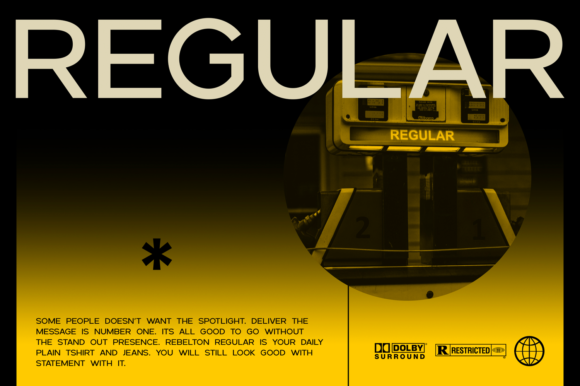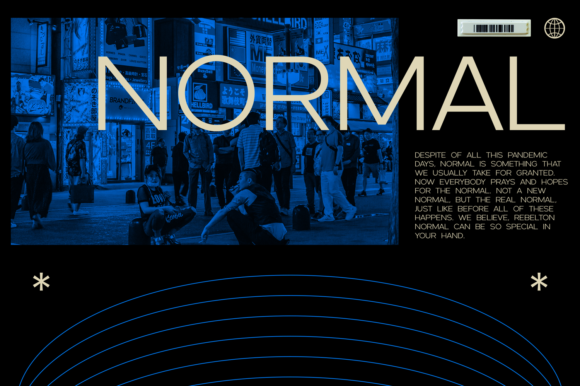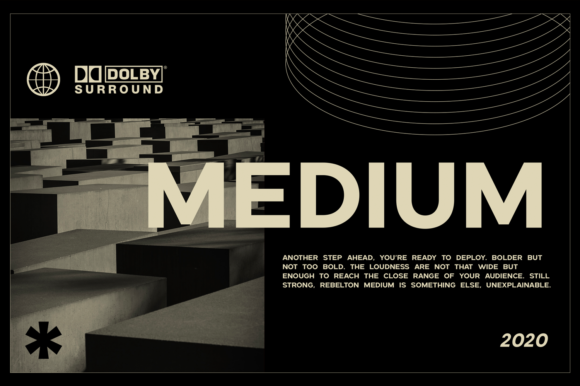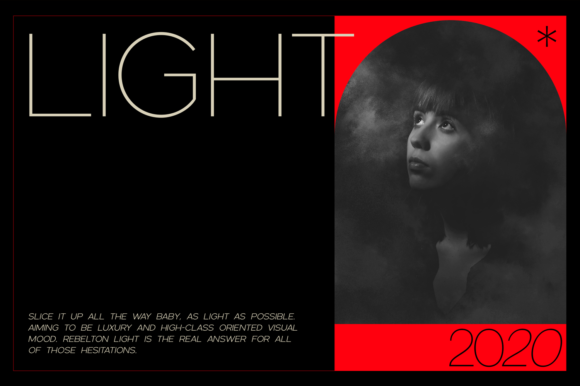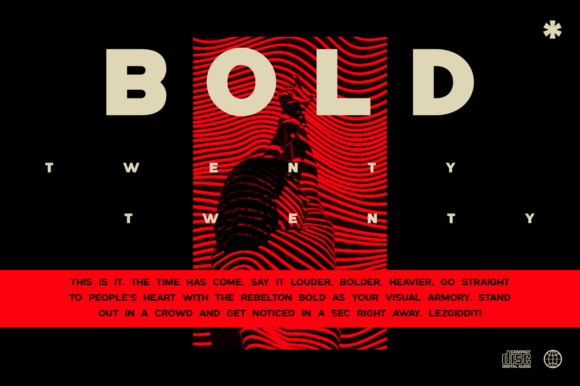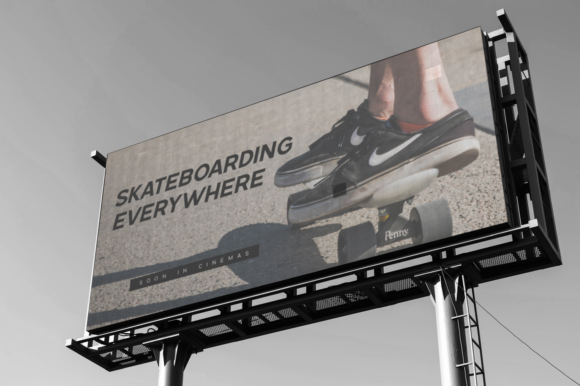
Introduction to Rebelton Font
Have you ever been working on a creative project and suddenly, the perfect font pops into your head, elevating the entire design? That’s exactly what happens when you stumble upon the Rebelton Font. Its bold and assertive nature makes it a standout choice for any design project that needs a futuristic touch.
Whether you’re designing a business card, a website, or any other visual material, the Rebelton Font is a valuable resource that can take your design to the next level. With its high quality and transparent background, it’s perfect for designers who want to add a touch of sophistication to their work. And the best part? It’s available for free download, making it an excellent addition to any design library.
Key Features of Rebelton Font
- Unique characteristics, such as its bold and edgy style, make it an excellent choice for designers seeking to add a touch of rebellion to their creative project.
Honest Review: Rebelton Font
As a designer, I’ve had the pleasure of working with a wide range of fonts, but the Rebelton Font has caught my attention lately. I downloaded it for a creative project that required a unique, edgy feel, and I must say, it’s been a game-changer.
What works well: ✨ The Rebelton Font has a bold, modern design that’s perfect for anything from graphic novels to advertising campaigns. Its geometric shapes and sharp lines give it a striking appearance that’s sure to grab attention. I also appreciate the fact that it’s available as a free download, making it a fantastic design resource for designers on a budget.
One thing that might be a drawback: ⚠️ The Rebelton Font doesn’t have a lot of character variations, which might limit its usability for projects that require a lot of customization. Additionally, the transparent background option can be a bit tricky to work with, especially if you’re not familiar with advanced design tools.
Overall, I’m really impressed with the Rebelton Font. Its unique design and high-quality graphics make it an excellent choice for any creative project that needs a bold, eye-catching font. While it may have some limitations, I believe it’s definitely worth checking out.
- Unique, bold design
- Perfect for graphic novels, advertising campaigns, and more
- High-quality graphics
How to Use Rebelton Font
Introduction to Rebelton Font
The Rebelton Font is a unique and versatile design resource ideal for creative projects requiring a touch of elegance and sophistication. This high-quality font is available for free download, making it an excellent choice for designers and artists on a budget.
Tips for Getting the Most Out of Rebelton Font
For optimal results, use the Rebelton Font with a clear and simple design. Avoid cluttering your design with too many fonts or colors, as this can detract from the elegance of the font.
Common Use Cases for Rebelton Font
The Rebelton Font is ideal for use in wedding invitations, business cards, and other formal designs. Its elegant and sophisticated look makes it perfect for designers looking to create a high-end feel without breaking the bank.